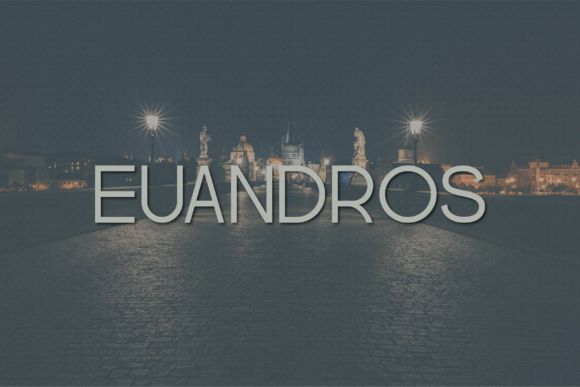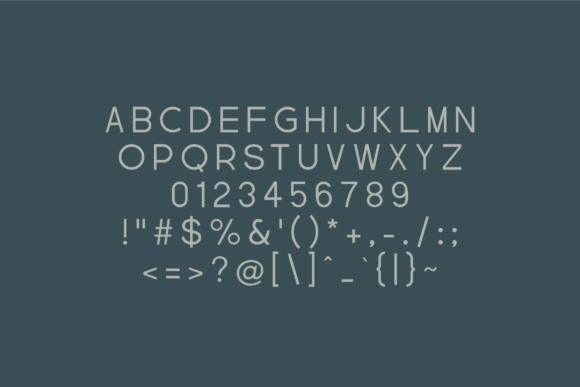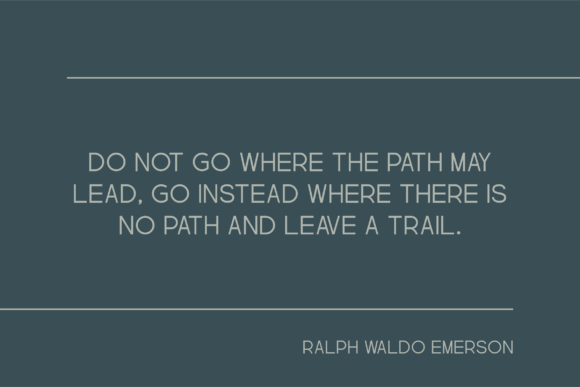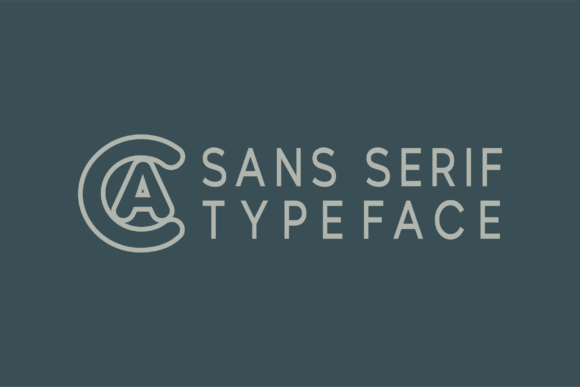
Have you ever stared at a blank canvas, trying to come up with the perfect font to bring your design to life? The struggle is real, but what if you had the perfect tool at your fingertips? That’s where Euandros Font comes in – a modern, classy sans serif typeface that’s ready to elevate your next project.
Euandros Font is a versatile font that’s perfect for logos, weddings, invitations, quotes, advertisements, print, magazines, and more. Its clean lines and sophisticated feel make it a valuable addition to any designer’s toolkit. With its extensive character set, including upper characters, number 0-9 and a range of punctuation and symbols, you’ll be able to bring your designs to life with ease.
Whether you’re a seasoned designer or just starting out, Euandros Font is a game-changer. Its flexibility and style make it the perfect choice for any project, and its ease of use means you can focus on what really matters – bringing your vision to life.
- Font Family: Euandros Font is a modern sans-serif font family, suitable for a wide range of applications.
- Character Set: The font family includes a wide range of characters, including Latin, Cyrillic, and Greek scripts, with over 1,000 glyphs.
- Unique Characteristics: Euandros Font features a unique blend of geometric and organic elements, with a distinctive x-height and a range of subtle variations in letterforms.
Designer Review: Euandros Font
As a designer, I’ve had the chance to work with a wide range of fonts, and Euandros is one that has caught my attention. Here’s my honest review.
- Unique aesthetic: Euandros has a distinct, elegant feel that sets it apart from more common fonts.
- High-quality design: The font is well-crafted, with a focus on precision and attention to detail.
- Multi-language support: Euandros supports a wide range of languages, making it a versatile option for global projects.
- Weight limitations: Euandros has a limited weight range, which may not be ideal for projects that require a lot of emphasis or contrast.
- Readability issues: While the font is visually appealing, it can be difficult to read at smaller sizes or in certain contexts.
Overall, I think Euandros is a solid choice for designers who want a distinctive, elegant font. However, its limitations may make it less suitable for projects that require a high degree of flexibility or readability. As with any font, it’s essential to test it thoroughly and consider your specific design needs before committing to use it.
The Euandros Font is suitable for a variety of designs, including:
- Infographics and data visualizations
- Editorial and publishing materials
Euandros Font is a beautiful and elegant font, but it may not be suitable for every project. Here are some alternatives that designers can consider:
Playfair Display is a high-end font that is perfect for luxury brands and high-end projects. It has a classic and elegant feel that is reminiscent of 19th-century typography. Playfair Display is more ornate than Euandros Font, with intricate details and flourishes that make it stand out.
When to use: Luxury brands, high-end projects, invitations, and announcements.
Comparison: While both fonts are elegant, Playfair Display is more ornate and luxurious, making it a better choice for high-end projects.
Merriweather is a classic serif font that is perfect for body text and headlines. It has a timeless feel that is both elegant and readable. Merriweather is less ornate than Euandros Font, making it a better choice for projects where a more subtle approach is needed.
When to use: Body text, headlines, and projects where a classic and elegant feel is desired.